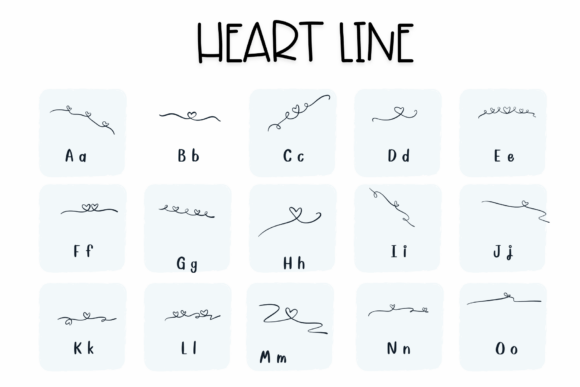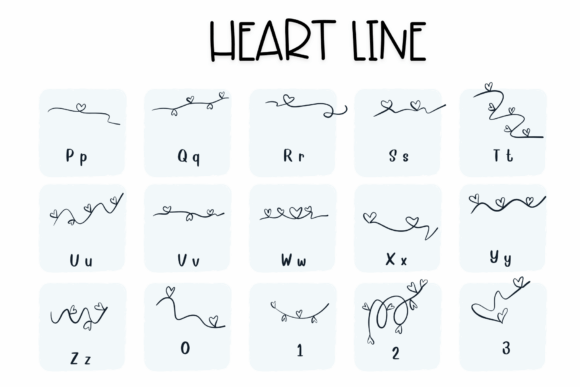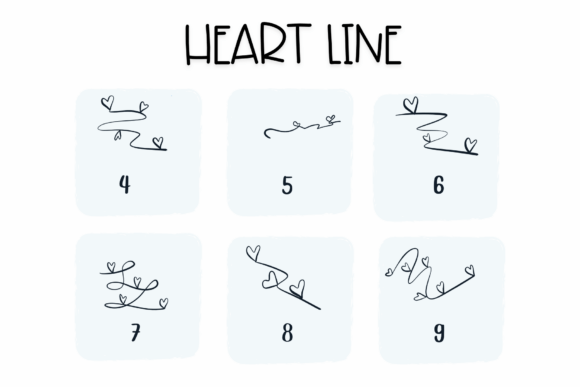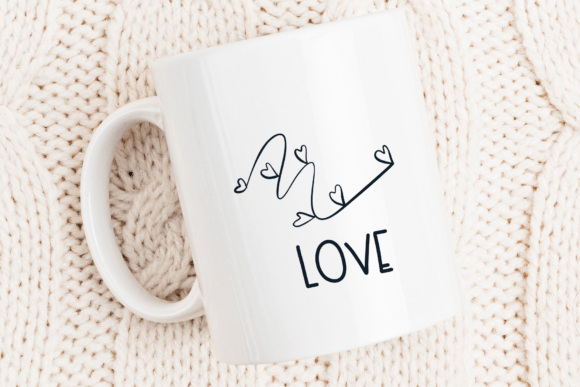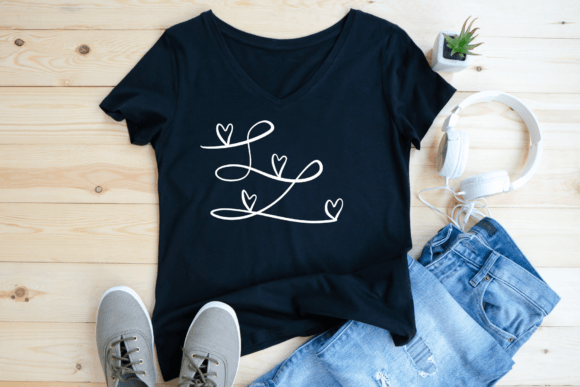
Introducing Heart Line Font: The Perfect Addition to Your Creative Projects
Are you a designer, crafter, or DIY enthusiast looking for a unique and charming font to elevate your creative projects? Look no further than Heart Line Font, a beautiful dingbats font with a sketched theme. This lovely font is perfect for adding a touch of personality and whimsy to your wedding invitations, crafts, decorations, logos, and many other creative endeavors.
What is Heart Line Font?
Heart Line Font is a dingbats font, which means it’s a type of font that features decorative symbols, shapes, and illustrations rather than traditional letterforms. This font is specifically designed with a sketched theme, giving it a charming, hand-drawn feel that’s perfect for adding a personal touch to your projects.
What Can I Use Heart Line Font For?
The possibilities are endless with Heart Line Font! Here are just a few ideas to get you started:
- Wedding Invitations: Add a romantic touch to your wedding stationery with Heart Line Font. Use it to create beautiful wedding invitations, save-the-date cards, and thank-you notes.
- DIY Crafts: Heart Line Font is perfect for DIY crafters who love to create handmade cards, gift tags, and decorations. Use it to add a personal touch to your creations.
- Decorations: Use Heart Line Font to create beautiful decorations for your home or office. Design custom wall art, garlands, and banners to add a touch of personality to your space.
- Logos and Branding: Heart Line Font can also be used to create unique logos and branding materials for your business. Its charming, hand-drawn feel makes it perfect for businesses that want to stand out from the crowd.
Why Choose Heart Line Font?
So why choose Heart Line Font over other dingbats fonts? Here are just a few reasons:
- Unique and Charming: Heart Line Font has a unique, hand-drawn feel that’s sure to charm your audience. Its sketched theme gives it a distinctive look that’s hard to find in other fonts.
- Versatile: Heart Line Font can be used for a wide range of creative projects, from wedding invitations to DIY crafts and decorations.
Tips for Using Heart Line Font
Here are a few tips for getting the most out of Heart Line Font:
- Experiment with Different Sizes: Heart Line Font looks great in a variety of sizes, from small and delicate to large and bold. Experiment with different sizes to find the one that works best for your project.
- Combine with Other Fonts: Heart Line Font looks great when paired with other fonts. Try combining it with a traditional serif or sans-serif font to create a unique and eye-catching design.
- Use for Headers and Titles: Heart Line Font is perfect for headers and titles, where its decorative symbols and shapes can really shine.
Heart Line Font is a beautiful and versatile dingbats font that’s perfect for designers, crafters, and DIY enthusiasts. Its unique, hand-drawn feel and sketched theme make it a great addition to any creative project, from wedding invitations to decorations and logos. With its ease of use and endless possibilities, Heart Line Font is sure to become a favorite in your font collection.